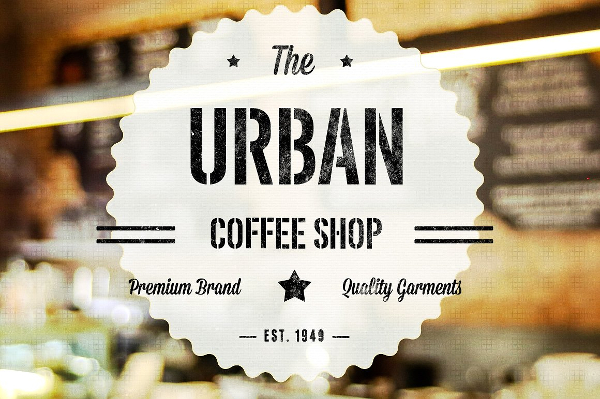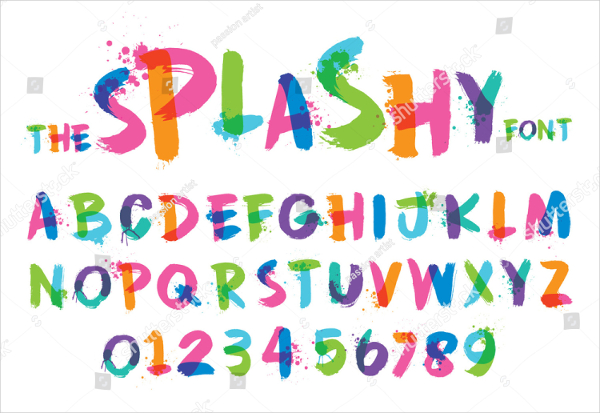
Has the search for the finest Urban Fonts brought you here to our website? If your answer to this question is a yes then we must say that your search comes to an end right here and right now. We on our website have compiled and gathered few of the most excellent Urban fonts from across the internet for you to choose from. Urban Fonts have received its style from the type of art that has been expressed by the urban inhabitants. These fonts allow you to add an aesthetic appeal, artistic feel and professional effect to the text. If you are looking forward to getting your hands on a stunning Urban Font then the only effort that you would have to put in is, start browsing through our collection of stupendously crafted Urban Fonts and grab the one that is in accordance with your taste and needs.
Urban Serif Font Family Pack
Historia Urban Fonts
Urban Modern Colorful Font And Alphabet
Urban Jaavon Font
Urban Tribe Font
Urban Stylized Splashy Font
Urban Passion Family Font
Simple Urban Vector Font
Urban Beautiful Font
Urban Stencil Display Font
Better Times Brush Font
Candy House Font
Urban Convenant Brush Font